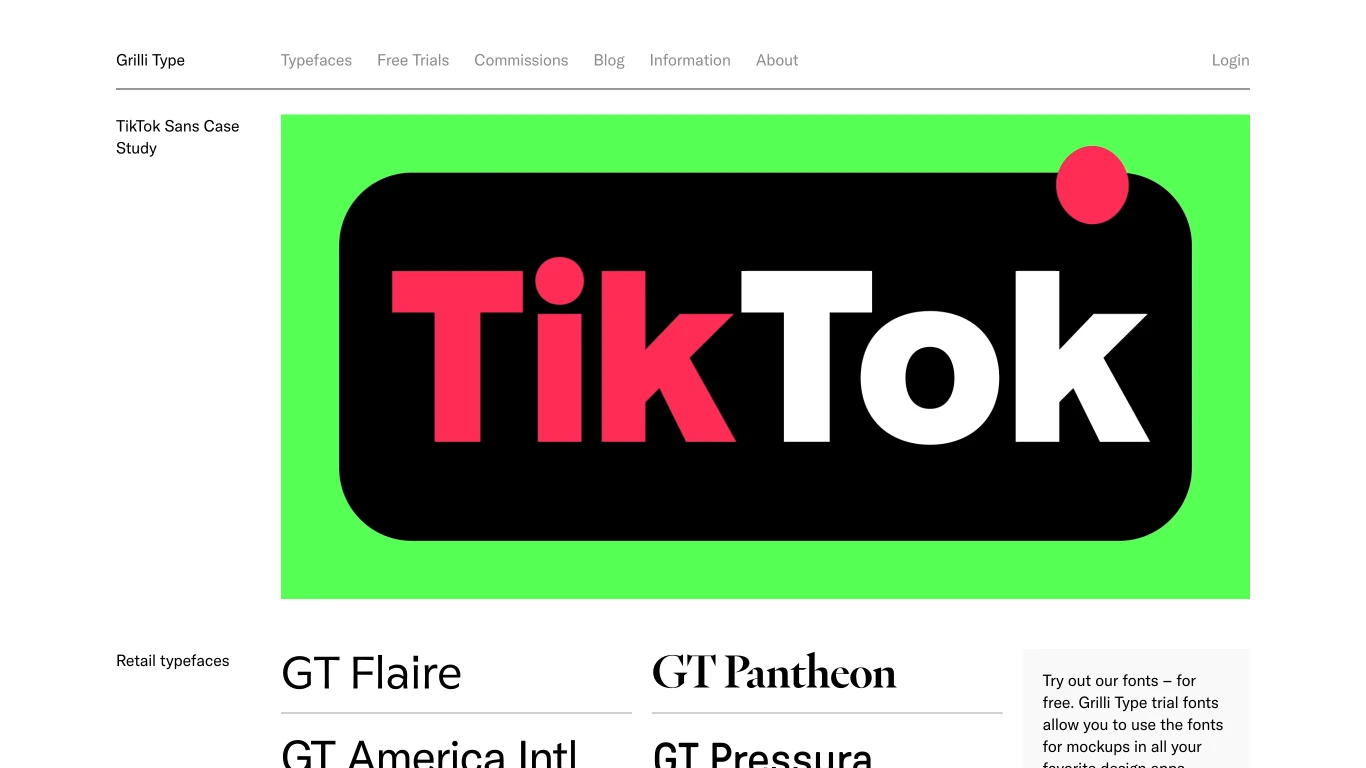
Grilli Type
Switzerland
2009
​Grilli Type is an independent Swiss type foundry founded in late 2009 by Noël Leu and Thierry Blancpain. Based in Lucerne, Switzerland, the studio operates globally, with team members in New York City and other locations worldwide. Grilli Type is renowned for producing contemporary typefaces that blend Swiss design traditions with modern aesthetics. Notable typefaces include GT Walsheim, GT America, and GT Sectra. The foundry has collaborated with various designers and studios, offering both retail and custom typeface services.